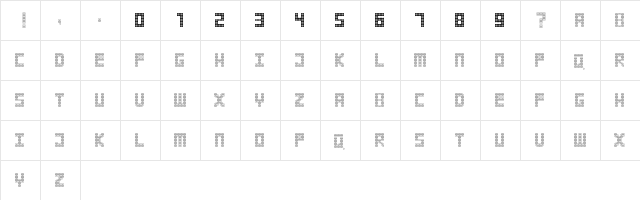
Strobelight Regular
Design Context for Strobelight Typeface
Strobelight is a composed and adaptable typeface that performs quietly and consistently across a wide range of design contexts. The delicate stroke weight brings airiness and refinement to layouts.